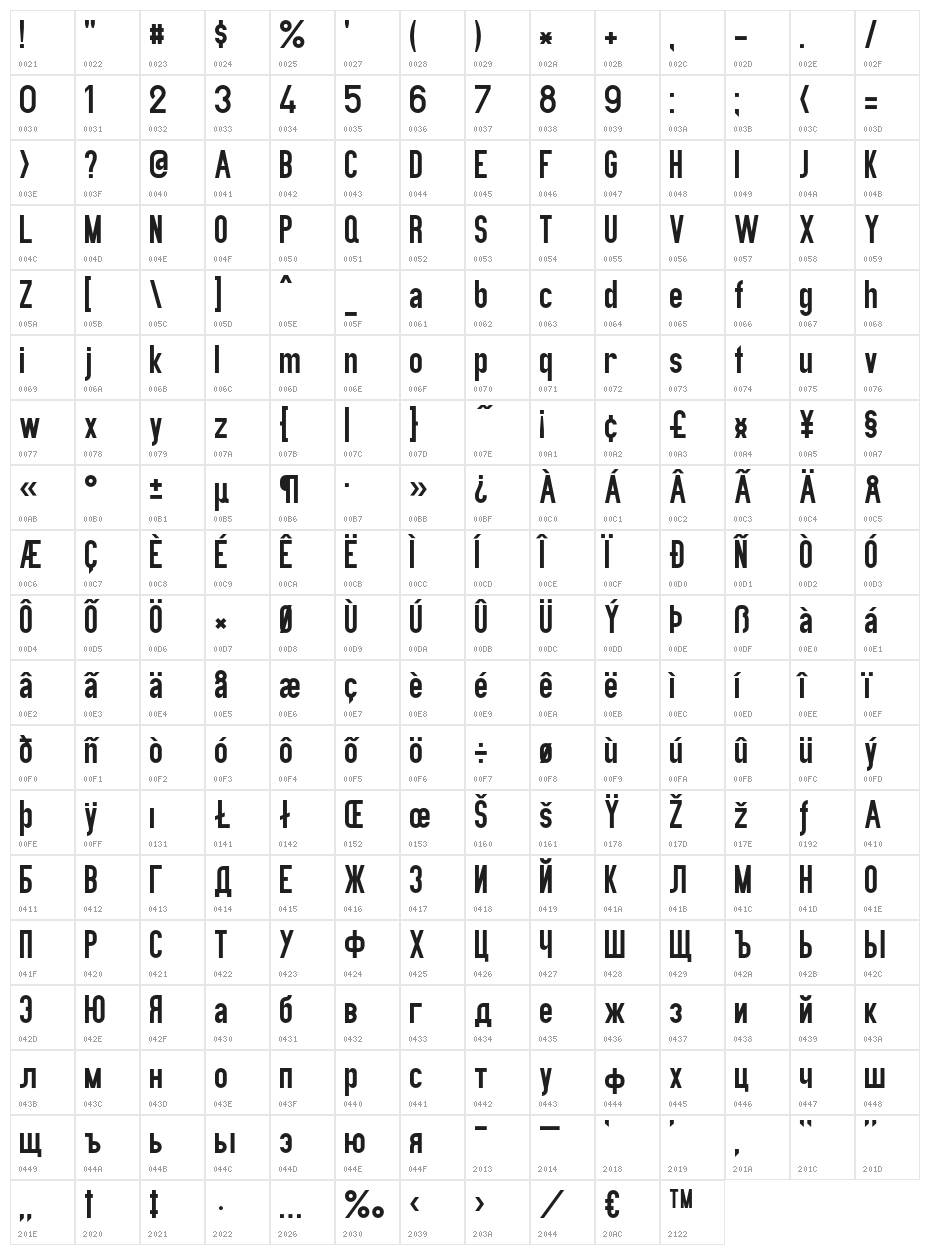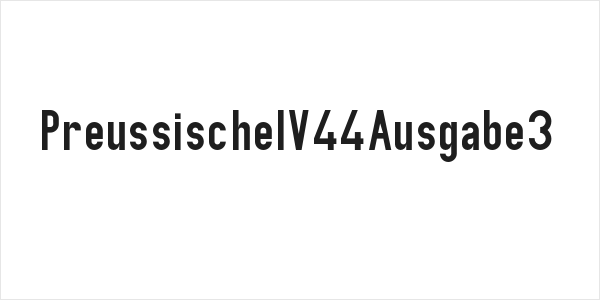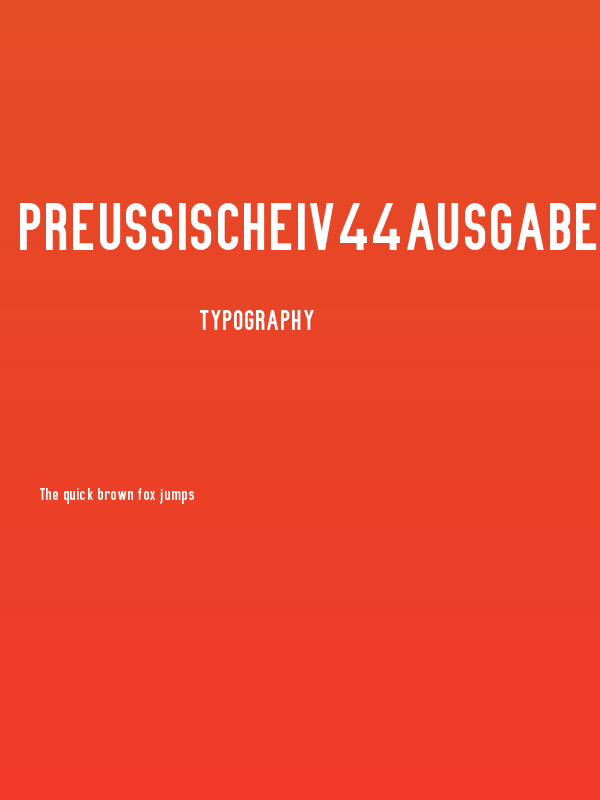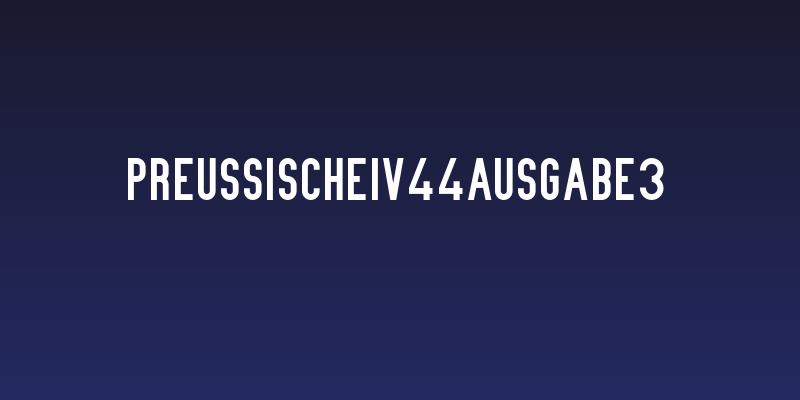
PreussischeIV44Ausgabe3 Font
PreussischeIV44Ausgabe3 Description
This font features a bold and impactful design with strong, clean lines and a modern aesthetic. The uppercase letters are tall and commanding, while the lowercase letters maintain a consistent height, offering a balanced look. The numerals are clear and easy to read, making them suitable for various applications. Special characters are well-defined, adding versatility to the font's usage. The overall style is contemporary, with a slight nod to industrial design, making it suitable for both digital and print media.